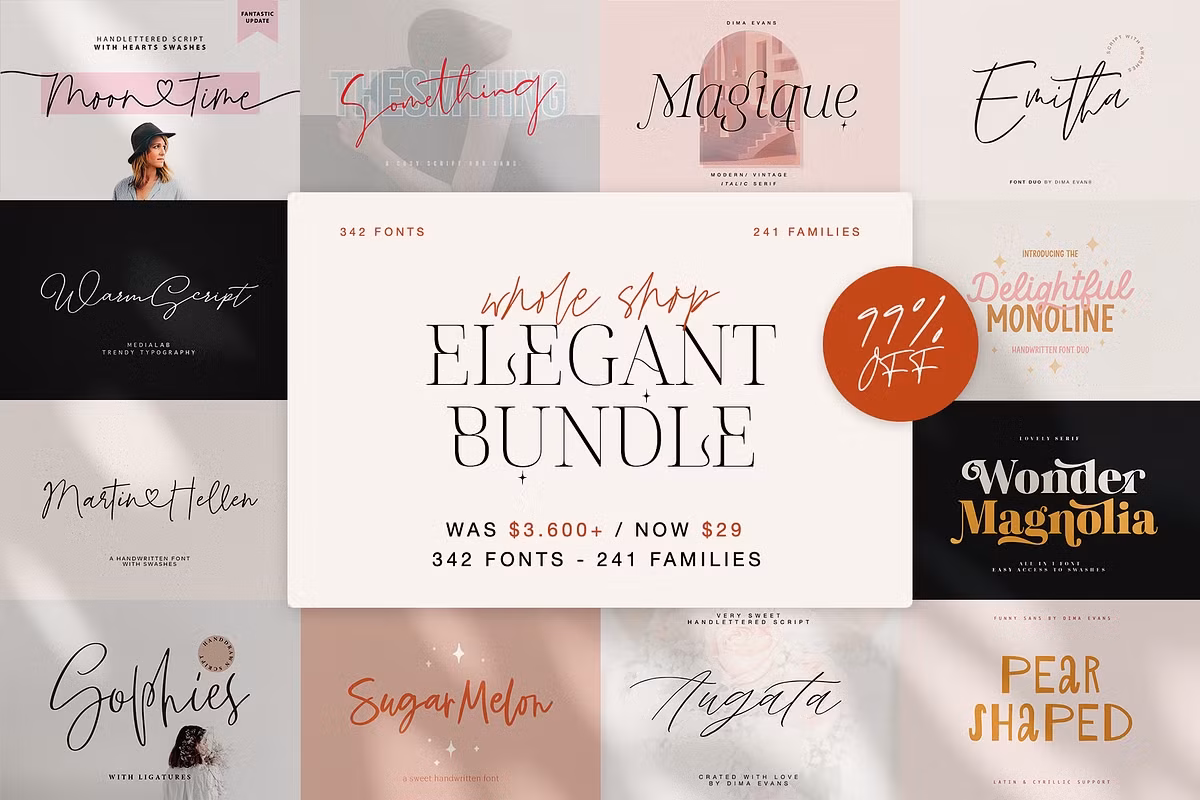
Whole Shop Bundle Free Download is an all-in-one font collection designed to meet every creative need in your toolkit. Featuring a wide variety of styles—from elegant scripts and modern serifs to playful display fonts—this bundle is perfect for designers, crafters, and entrepreneurs looking to build strong, cohesive branding.
Whether you're working on logos, packaging, social media content, or wedding designs, the Whole Shop Bundle offers unmatched versatility and high-quality typefaces to suit any mood or theme. Many of the fonts come with extras like ligatures, alternates, and bonus graphics to help you create stunning, professional work.